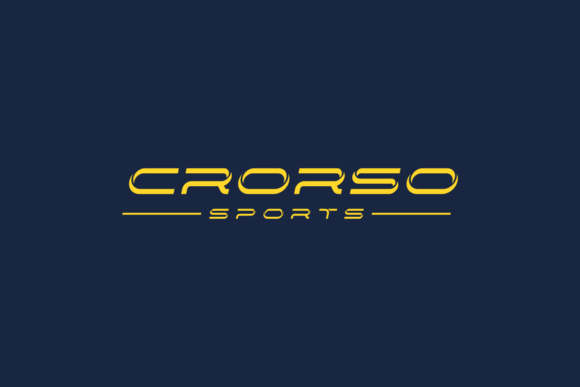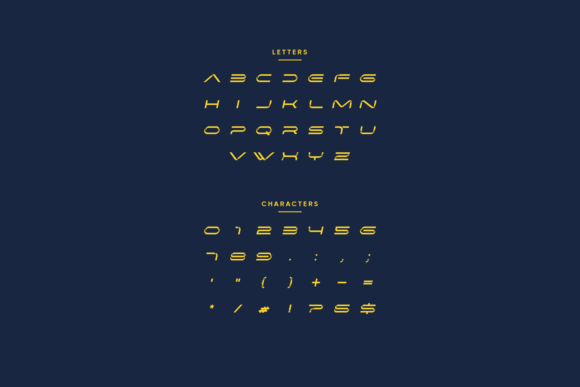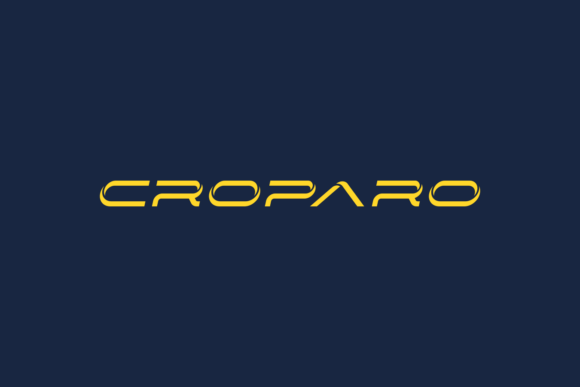
Introduction to Cordro Font
**Cordro** is a meticulously crafted typeface designed specifically for logos, branding, headers, and titling.
With precise spacing tailored for impactful logos and branding materials, this font ensures your designs make a lasting impression Please note, the font isn’t suitable for body text, but excels in visual applications where every detail matters.
Cordro Font offers exceptional quality and versatility, making it a valuable addition to your design toolkit. Whether you’re creating for personal projects or commercial use, Cordro Font delivers professional results.